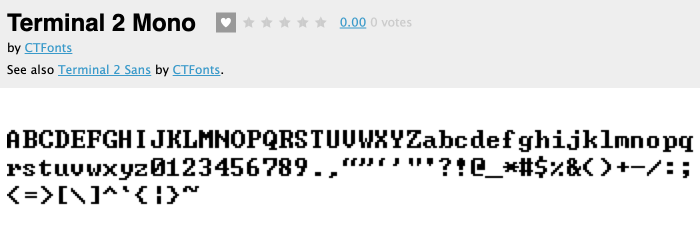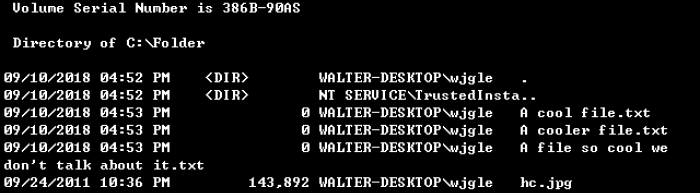
PC Font recreations: "Terminal" (Style 2, coding is CHINESE_BIG5)
This font only appears in Notepad, MS Paint and nowhere else, so replicating it might be a good idea.
The most amazing thing about this font is that it changes its style depending on the chosen font size. More styles and "More Latin" coming soon.
This is a very nice recreation, CT! I wonder if fixing even one mistake ruins the original feel of the font?
isnt this the homestuck font lol
[BWM] Don't worry about the original feel of this font! I already checked it to see if there were any mistakes. I'll just add the "More Latin" character set soon
in winxp it appears in cmd.exe
and on the windows boot manager
related: i made the *other* iconic font from dos...cmon youve seen it at least once somewhere, as its pretty much the default font in every device (from surveillance cameras to mobile bootloaders to old computers)
seriously. youve seen it at least once.
ive even seen it on a led text scroller on a local pharmacy
Good work. Distances between letters look uneven. Can you adjust the Letter Width to fix that? You should set the Letter Width at whole bricks/pixels; otherwise, the pixel font will appear fuzzy. It won't be perfect, but that's OK. 10/10
"I'll just add the "More Latin" character set soon."
Dude, when is the More Latin character set coming? You've been saying that since 26 December 2019!